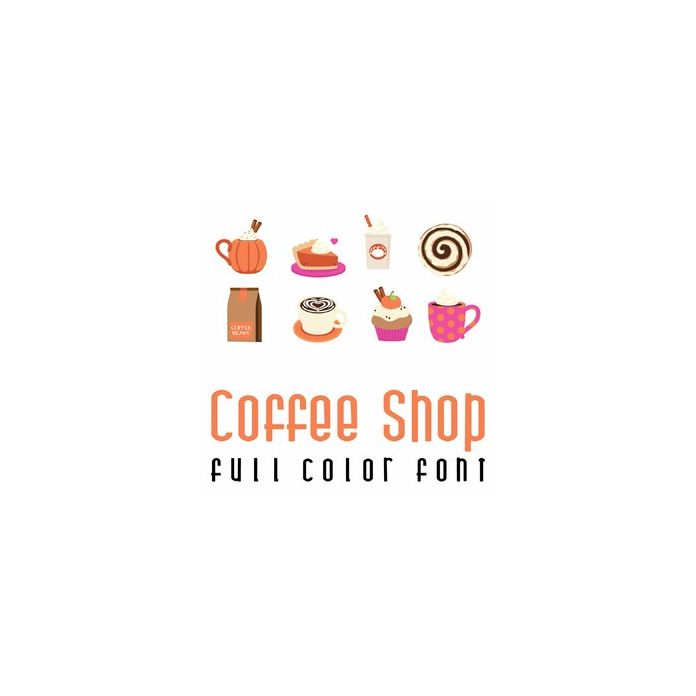
This adorable full color doodlebat font features has 26 elements of a coffee shop bakery in a Fall pumpkin spice setting. Perfect for the hoidays, use this doodlebat to create fun gifts, cards, crafts, decor, planner stickers, scrap book pages and more!. Perfect for cards, crafts, gifts, decor, scrap book pages, planner stickers and more!